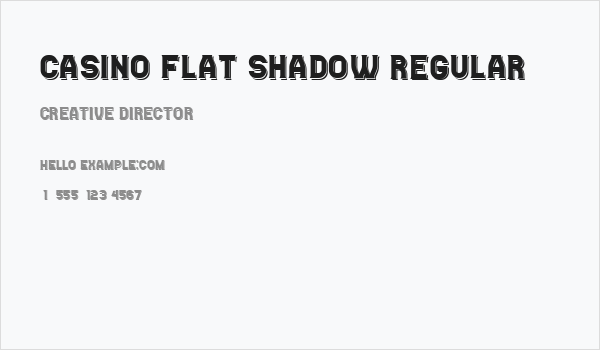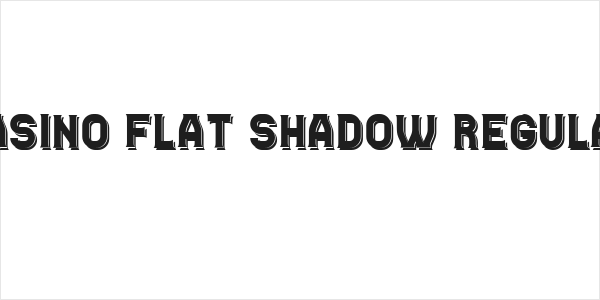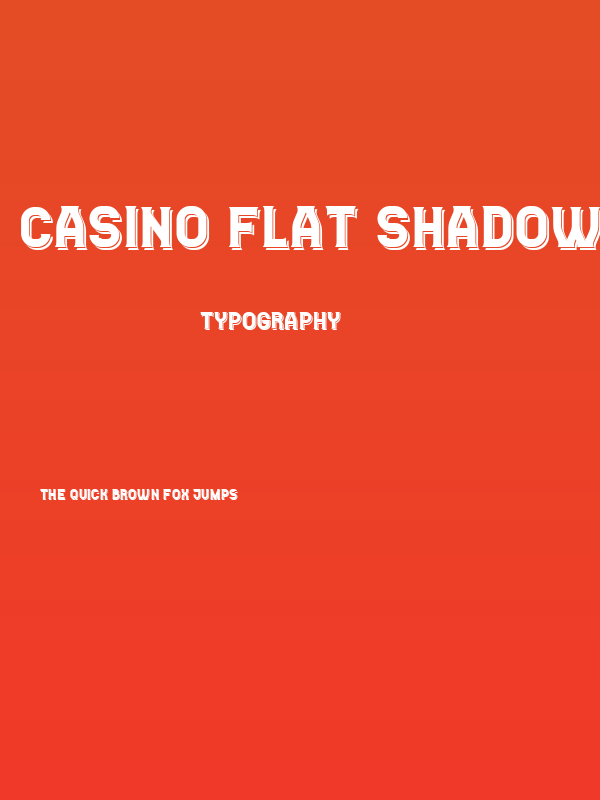
Casino Flat Shadow Regular Font
Casino Flat Shadow Regular Description
This font features a bold and striking design with a flat shadow effect that gives it a three-dimensional appearance. The characters are uppercase with a strong presence, making them ideal for attention-grabbing headlines. The shadow effect is consistent across all characters, adding depth and a sense of movement. The font's style is reminiscent of classic casino signage, with a playful yet sophisticated edge. The numbers and punctuation marks maintain the same bold style, ensuring uniformity across different types of text.
| Proposed Projects | Ideal for use in casino-themed designs, posters, signage, and any project requiring a bold, eye-catching typeface. |